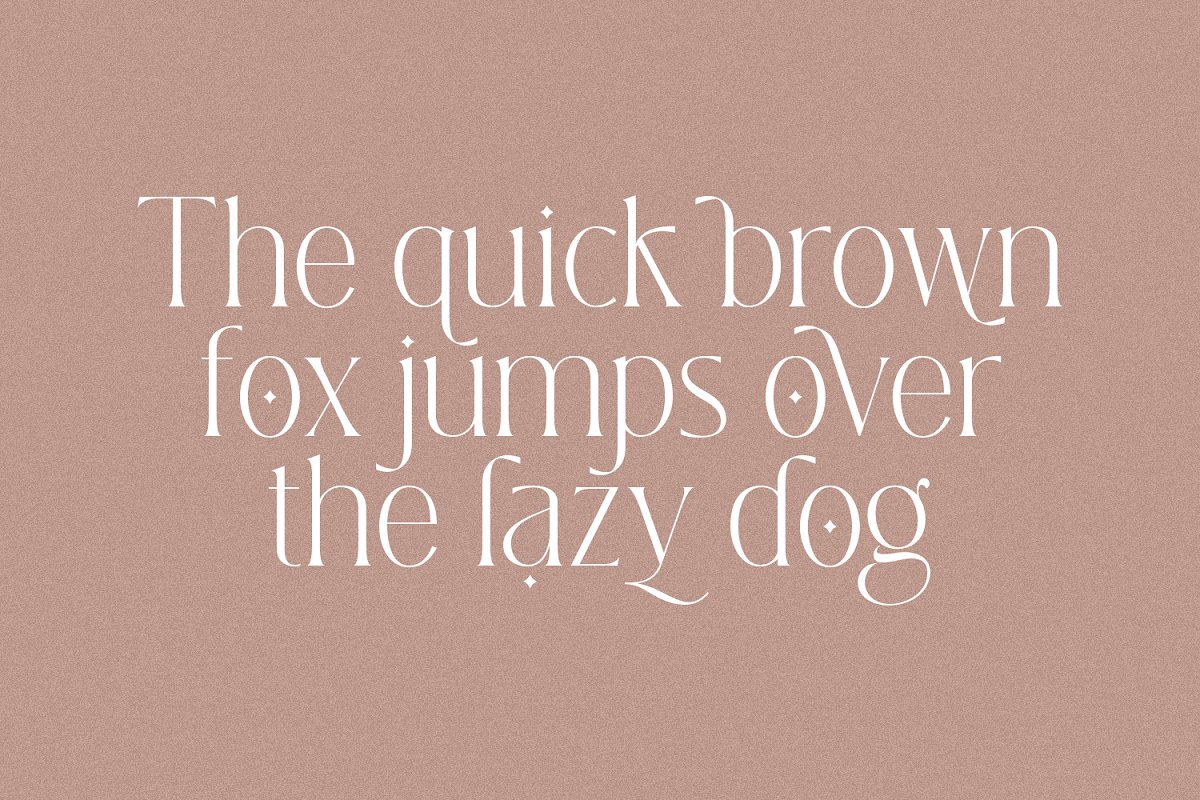
About the Koln Modern Serif
Hello everyone, let me introduce new product Köln – a modern serif style with Alternates & Ligatures, the perfect mix for magazine, logo, invitations, product designs, and moreFeatures:PUA EncodeMultilanguageAlternatesLigaturesFiles Includes:Köln, otfKöln, ttfKöln, woffNeed to test words in this font? Just type the box below, and see what it looks likeFeel free to give me a message if you have a problem or question